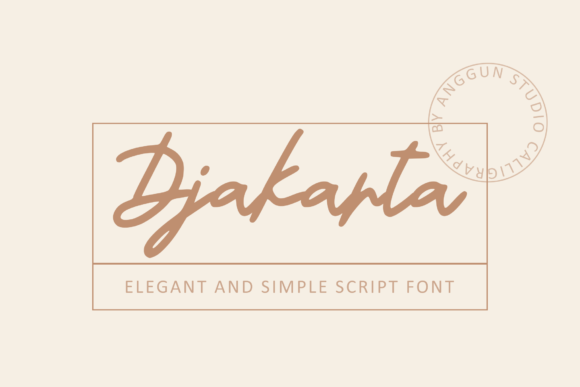
Prepare to be captivated by Djakarta, the enchanting handwritten font that exudes elegance and sophistication. Crafted with meticulous detail by the talented Anggun.studio, Djakarta is the epitome of cursive beauty, flowing effortlessly like a gentle stream. Its graceful lines and delicate curves add a touch of timeless charm to any project.
Immerse yourself in Djakarta's incredibly distinct and captivating style, a true feast for the eyes. With its clean, thin, and smooth vibe, Djakarta seamlessly enhances any design, transforming it into a visual masterpiece. Whether you're a seasoned designer or just starting, Djakarta is your perfect companion, elevating your creations to new heights.
Let Djakarta's charm work its magic on your logos, branding, social media posts, invitations, and more. Its versatility knows no bounds, making it the ultimate choice for a wide range of design projects. Unleash your creativity and let Djakarta's elegant touch add a touch of magic to your work.